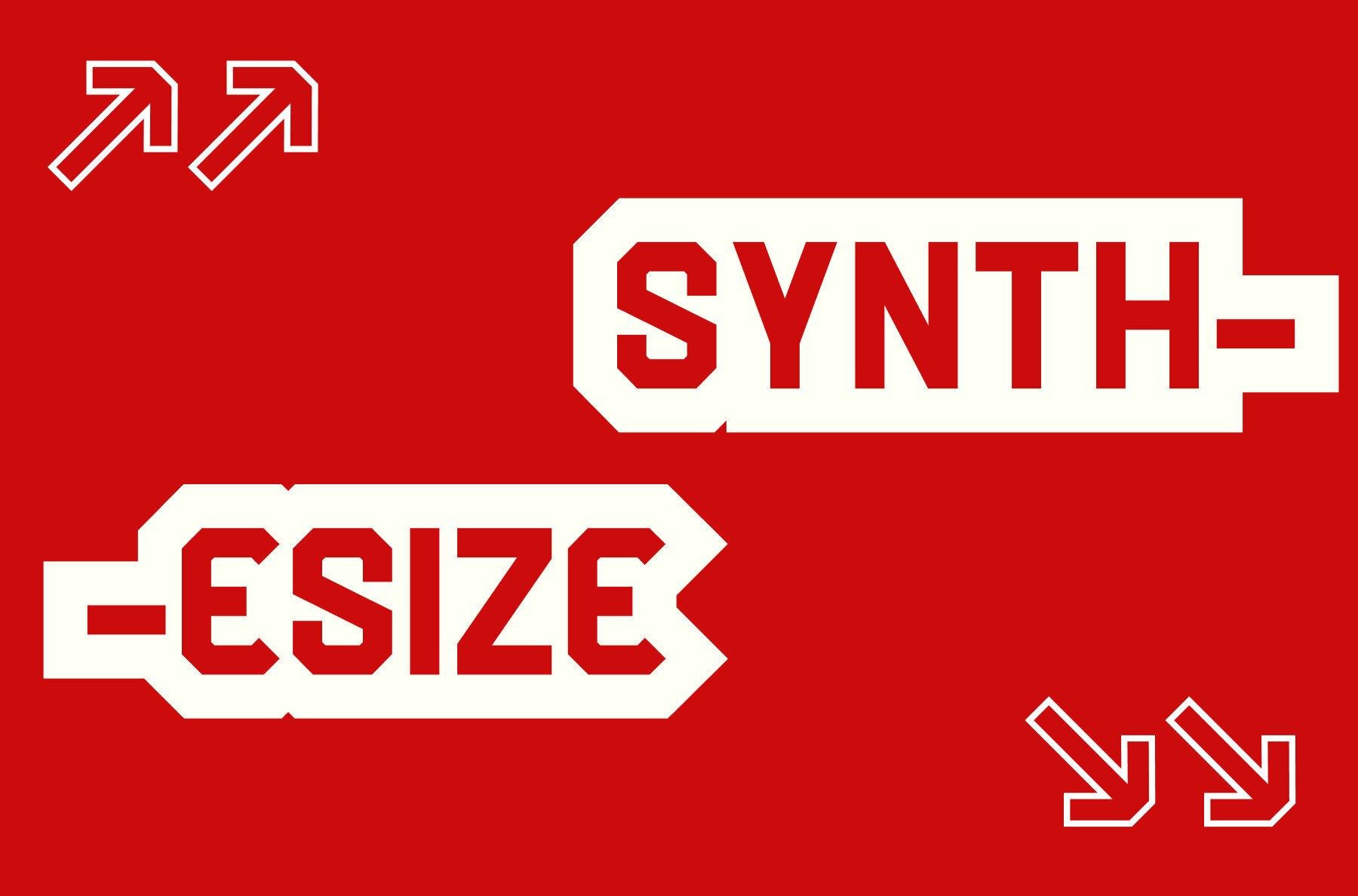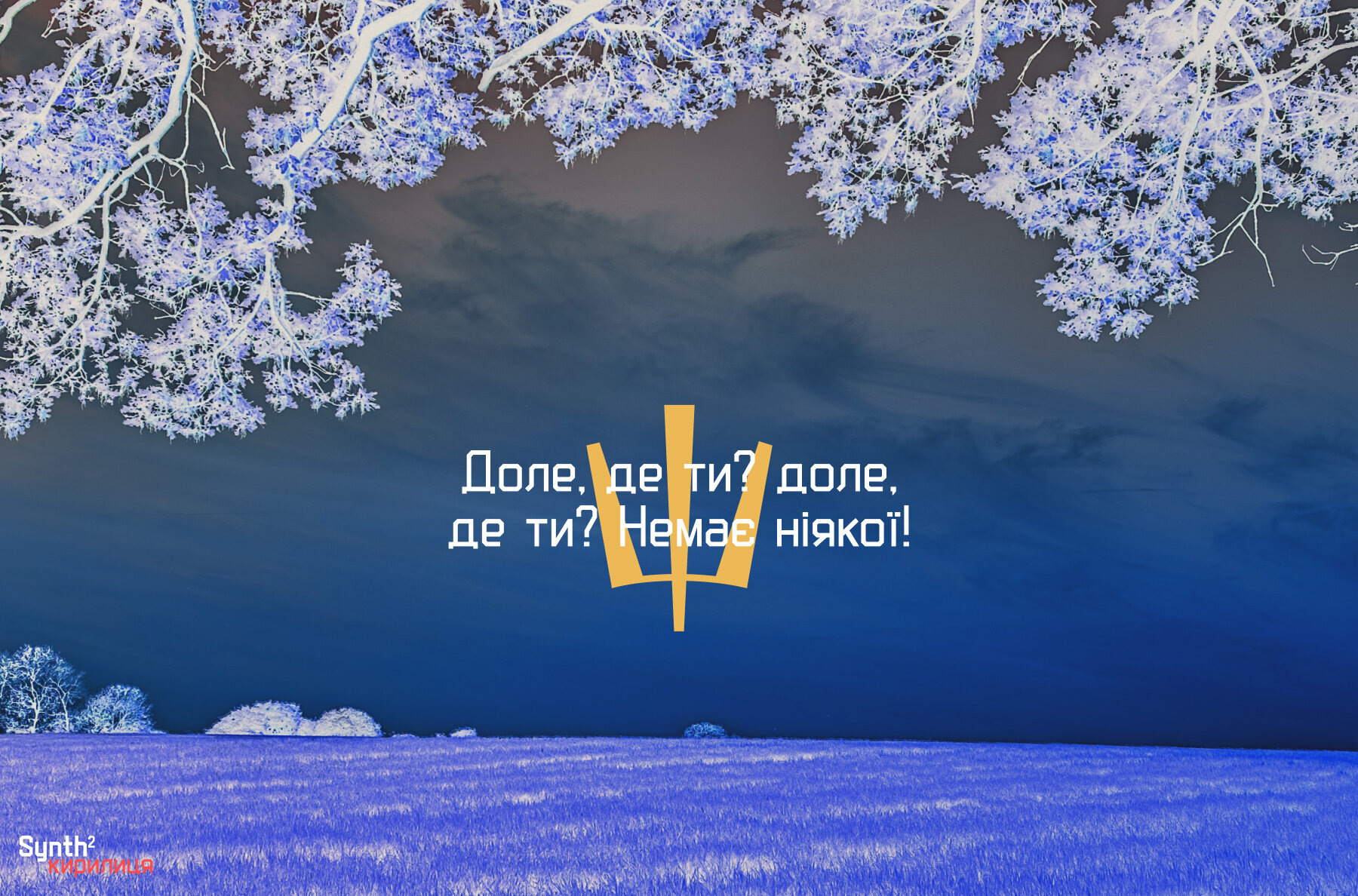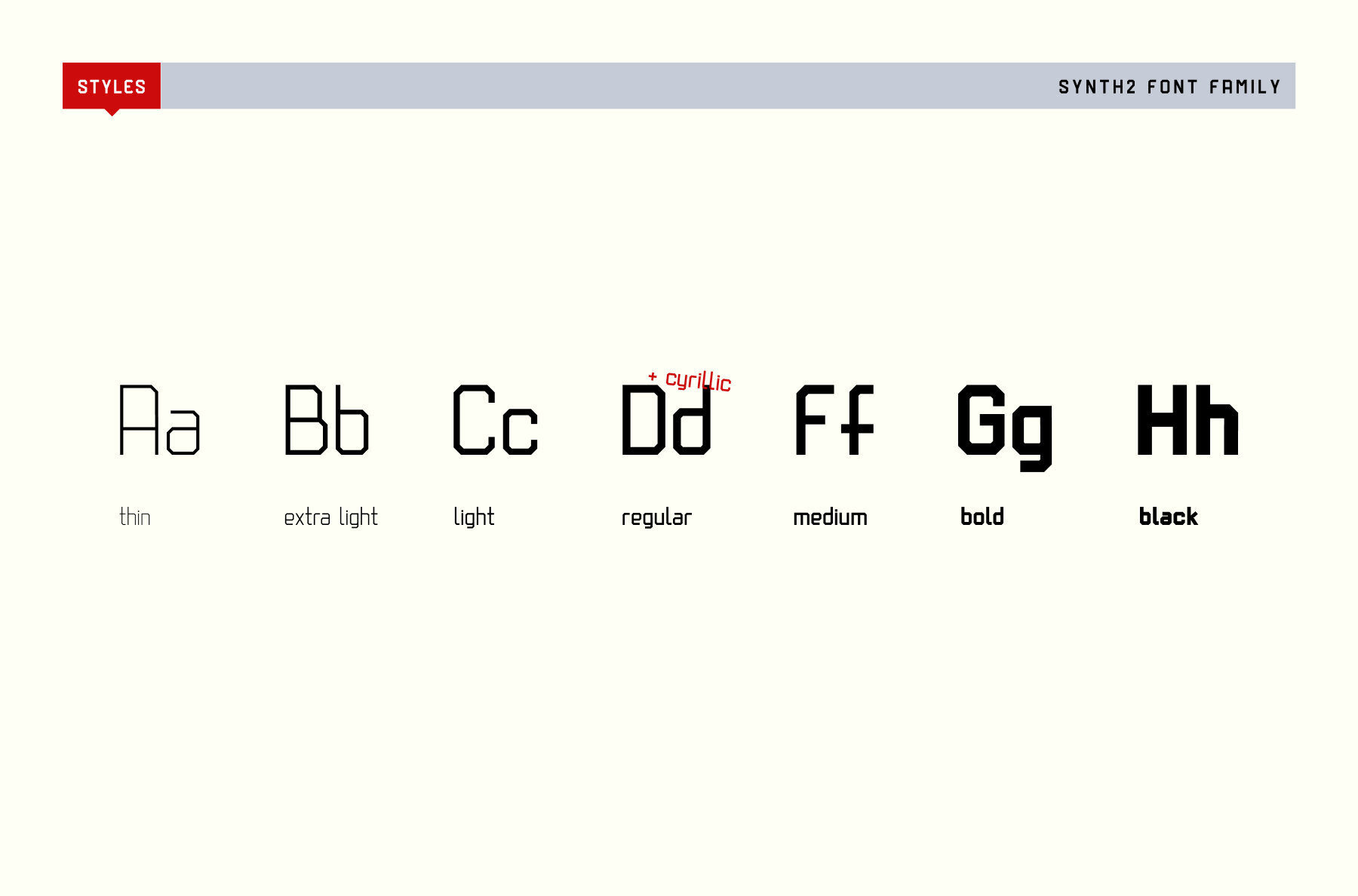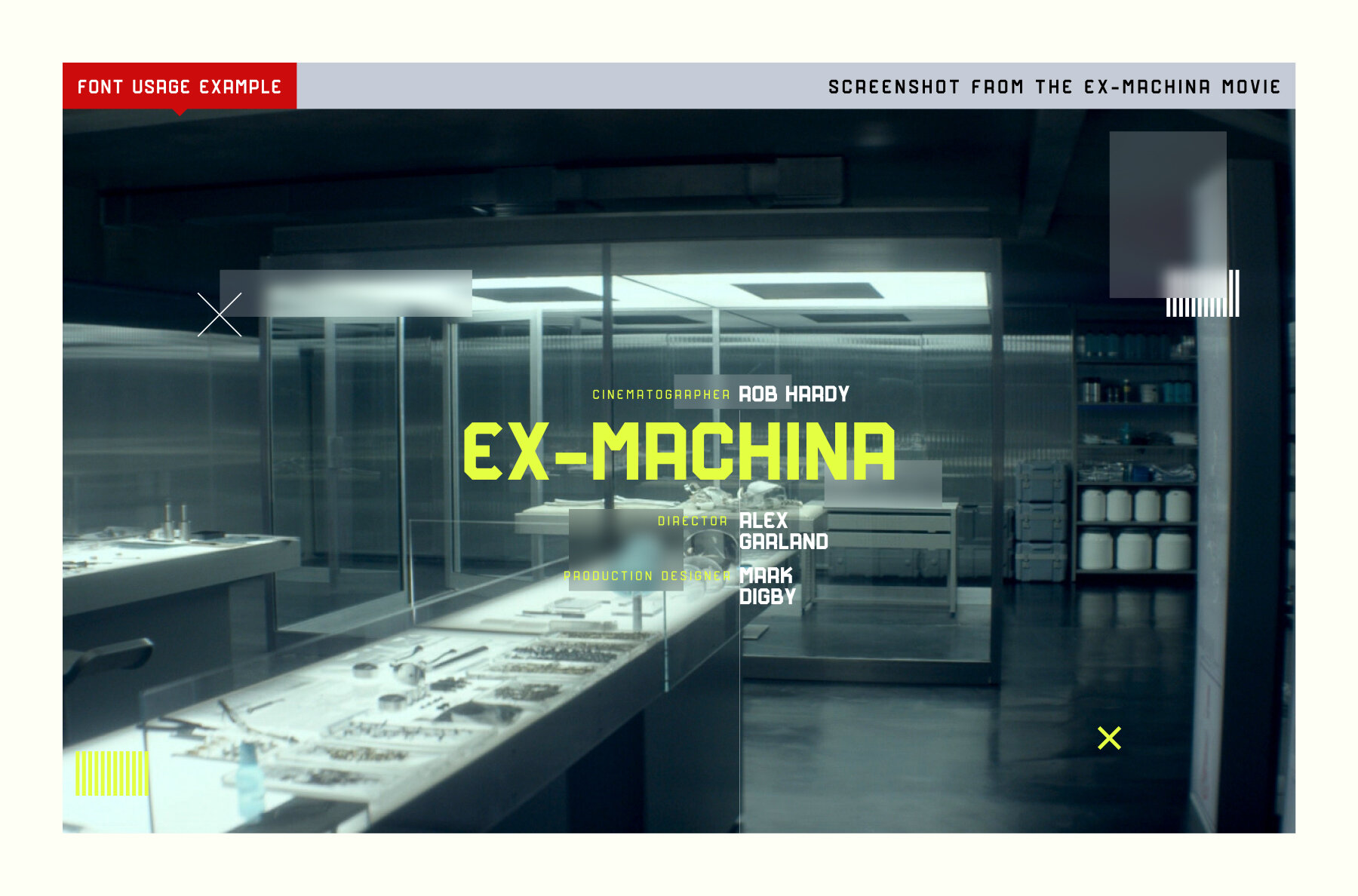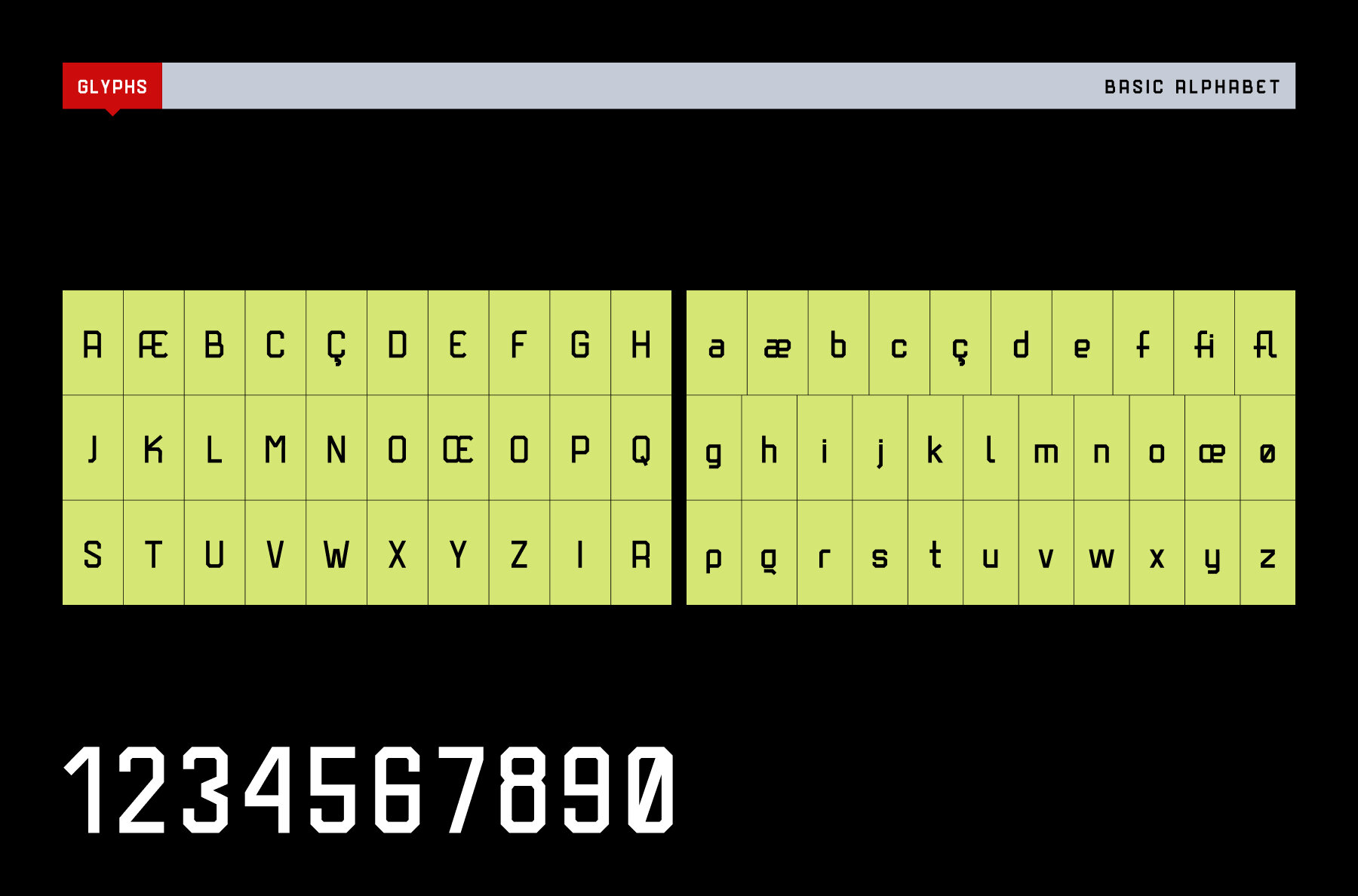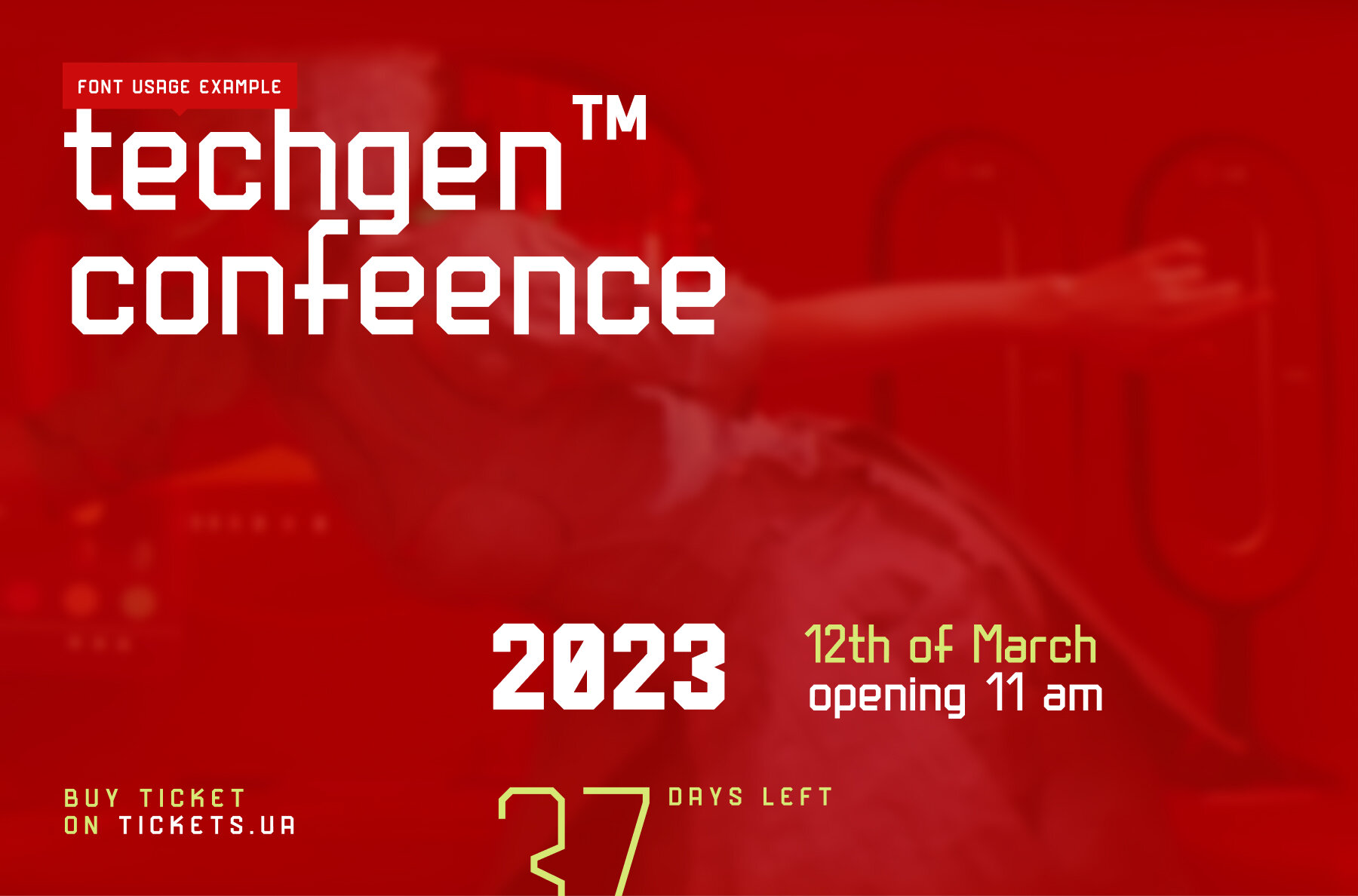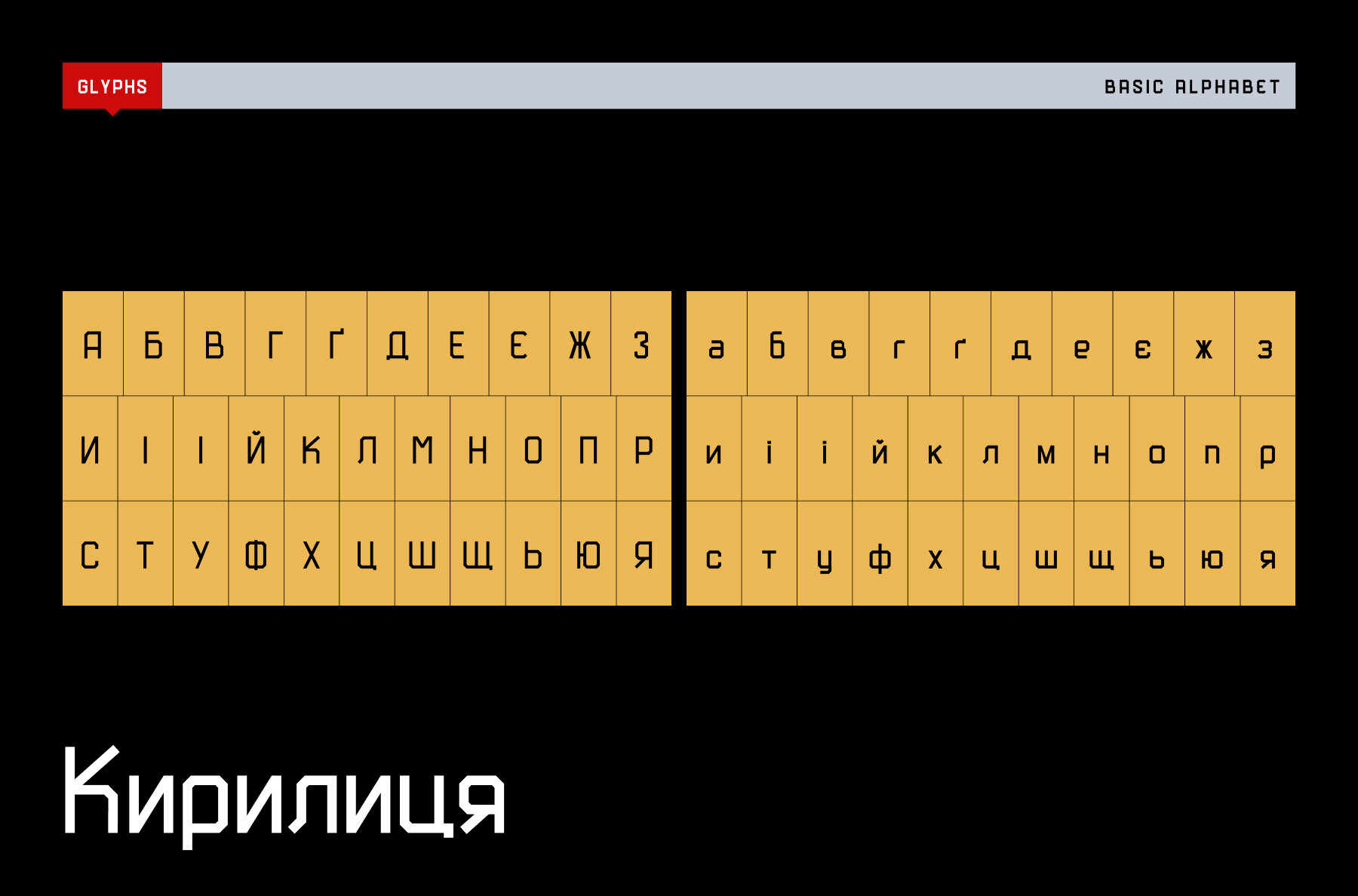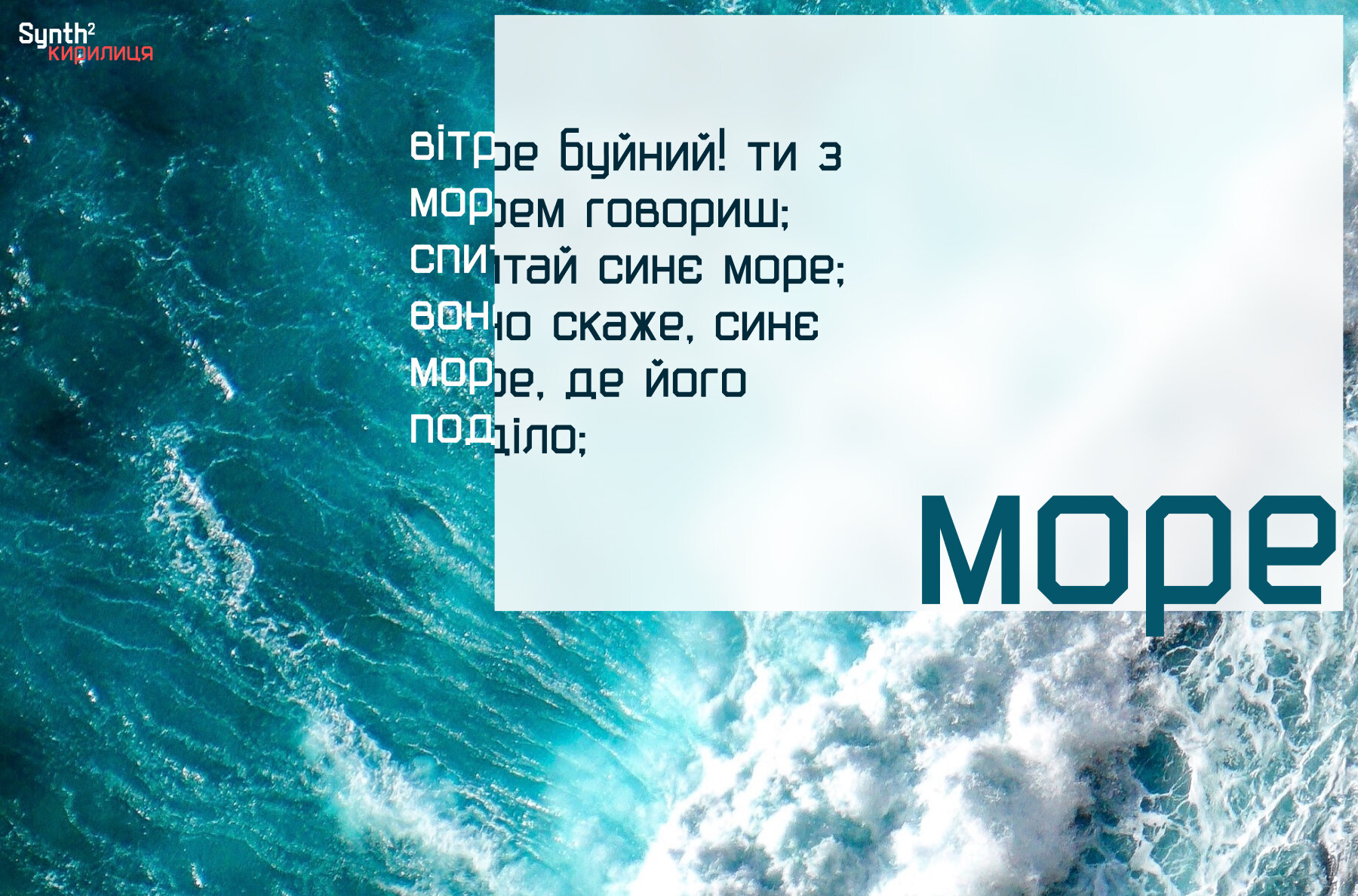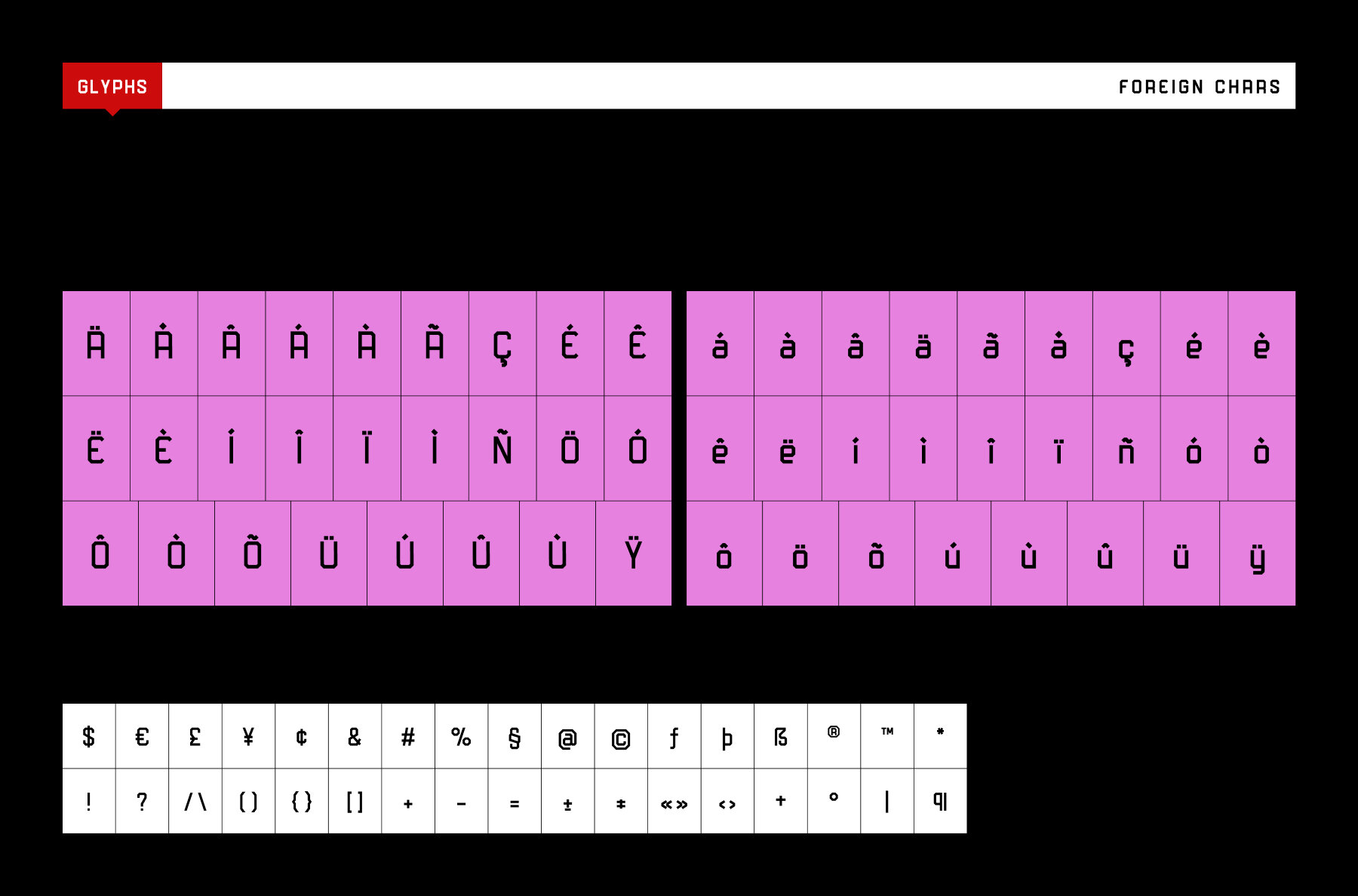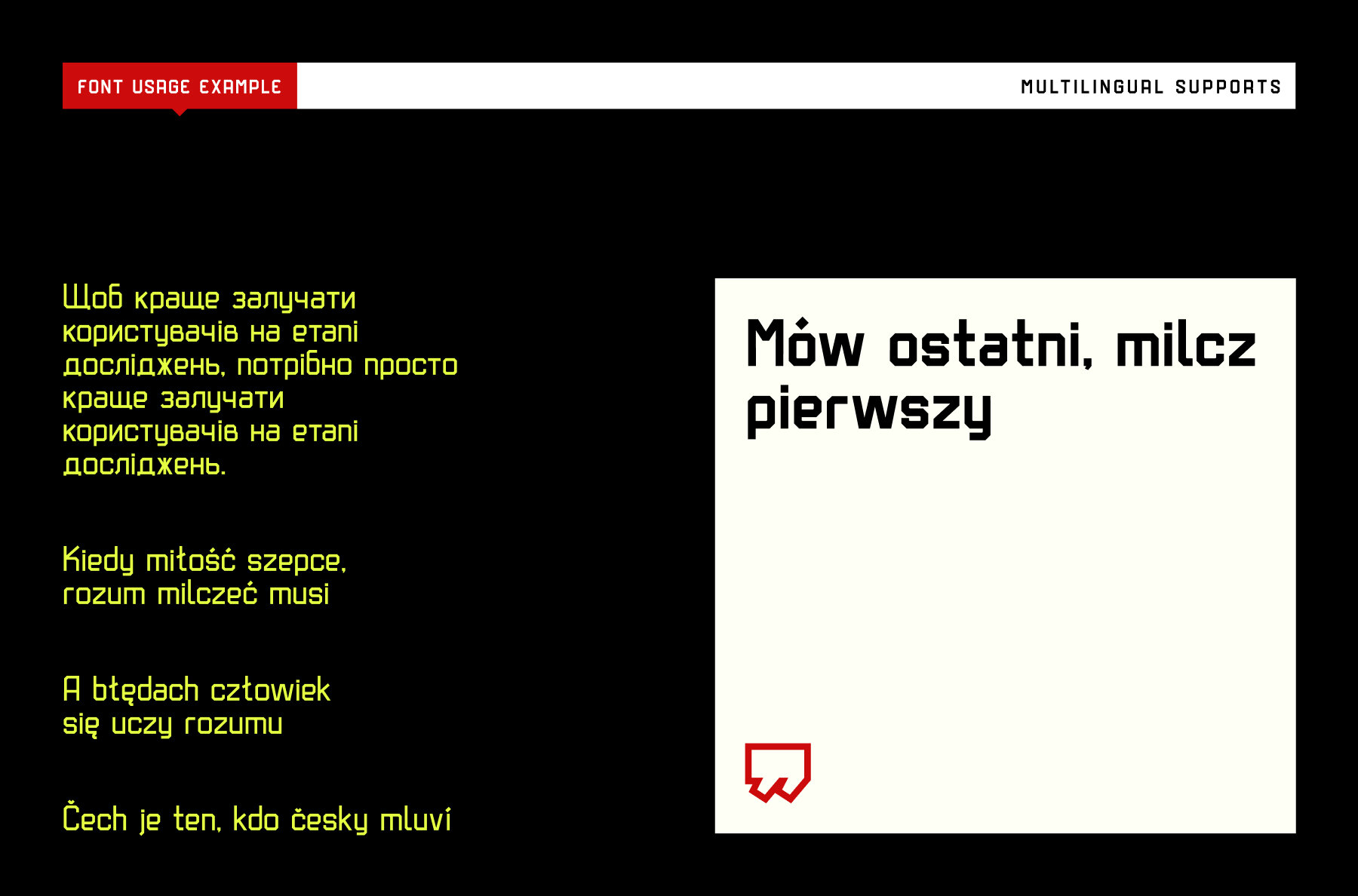
Synth Font
The font has a truly futuristic nature. It perfectly conveys the atmosphere of technology and futurism and it's the best choice for sci-fi and hi-tech topics and pictures. The font letters are unrounded, its build is very simple and straight. The font includes 7 styles: thin, extra light, light, regular, medium, bold, and black. With the variety of font widths, there is the ability to make different combinations in graphic or web design projects as well. Carefully kerned letters look well in paragraphs and titles. Special attention to uppercase headings. The font counts 477 glyphs for each style. The thin style is free to use.